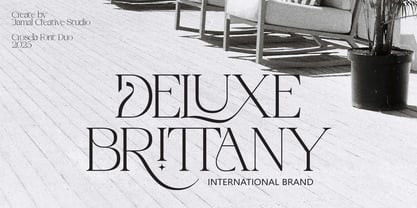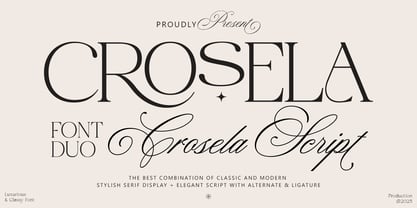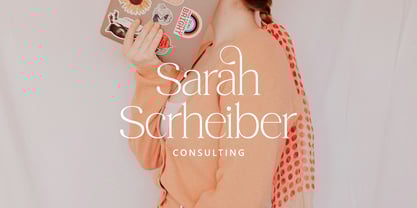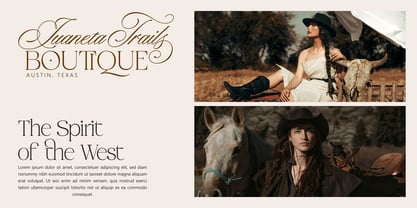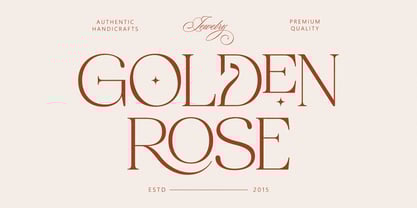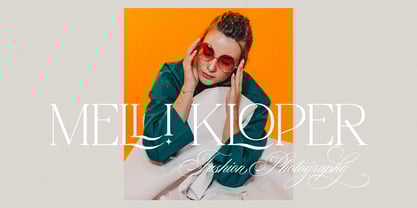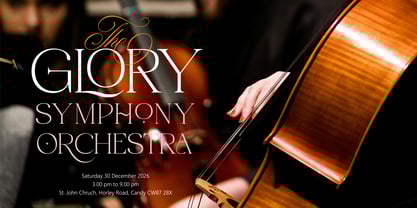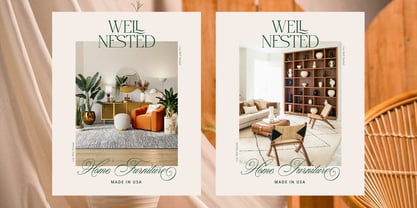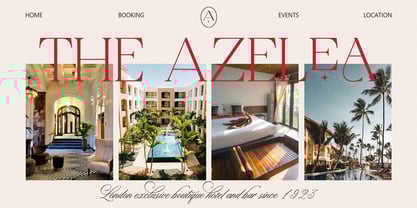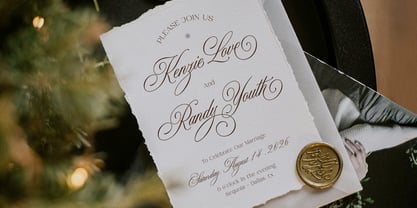
Crosela
by Jamalodin
The Crosela Font Family was designed by Jamaluddin and published by Jamalodin. Crosela contains 2 styles and family package options. More about this family
New Present Crosela Font Duo the best combination of classic and modern, Stylish Serif Display + Elegant Script suitable for branding, wedding invitations, greeting cards, posters, name card, quotes, blog header, logo, fashion, letter, stationery and other projects. The fonts support ligatures, alternates, and are multilingual. And this Font has given PUA Unicode. so that all the alternate characters can easily be accessed in full by a craftsman or designer. If you have any question, don't hesitate to contact me. Thanks for your visit.